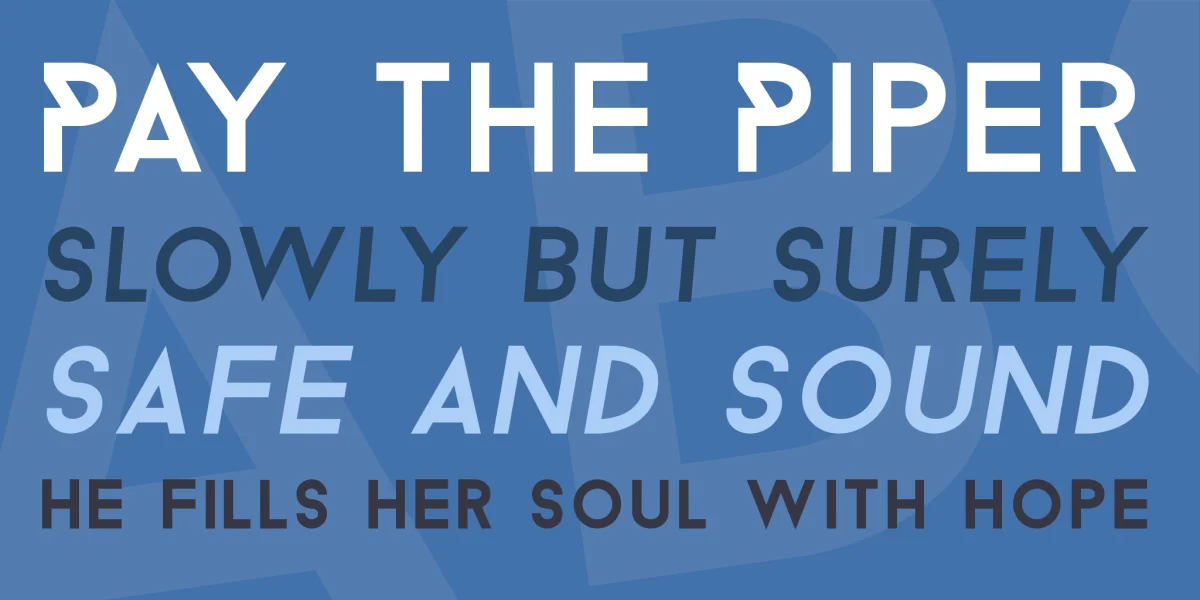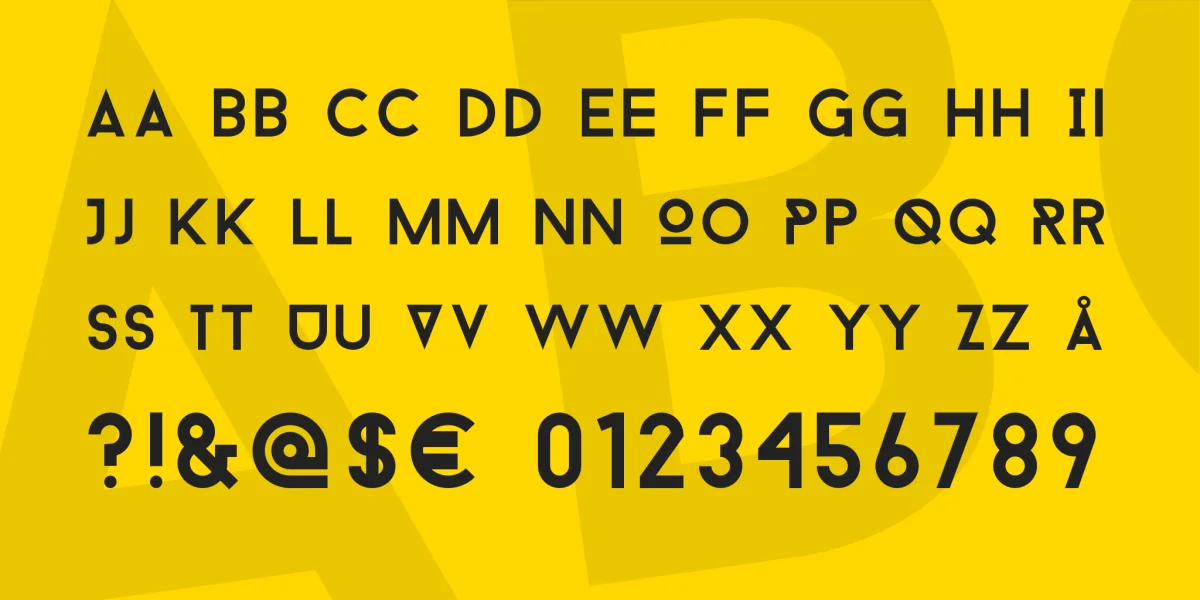
Baron is an free uppercase display typeface inspired by the classic sans serif font familes. This typeface is, because of his many alternative options and weights, perfect for usage in posters/logotypes and headlines. This Typeface is free for personal use. For commercial projects, please contact by email for permission. Please send me some images of your project using the font Baron. I am really interested! Contact: